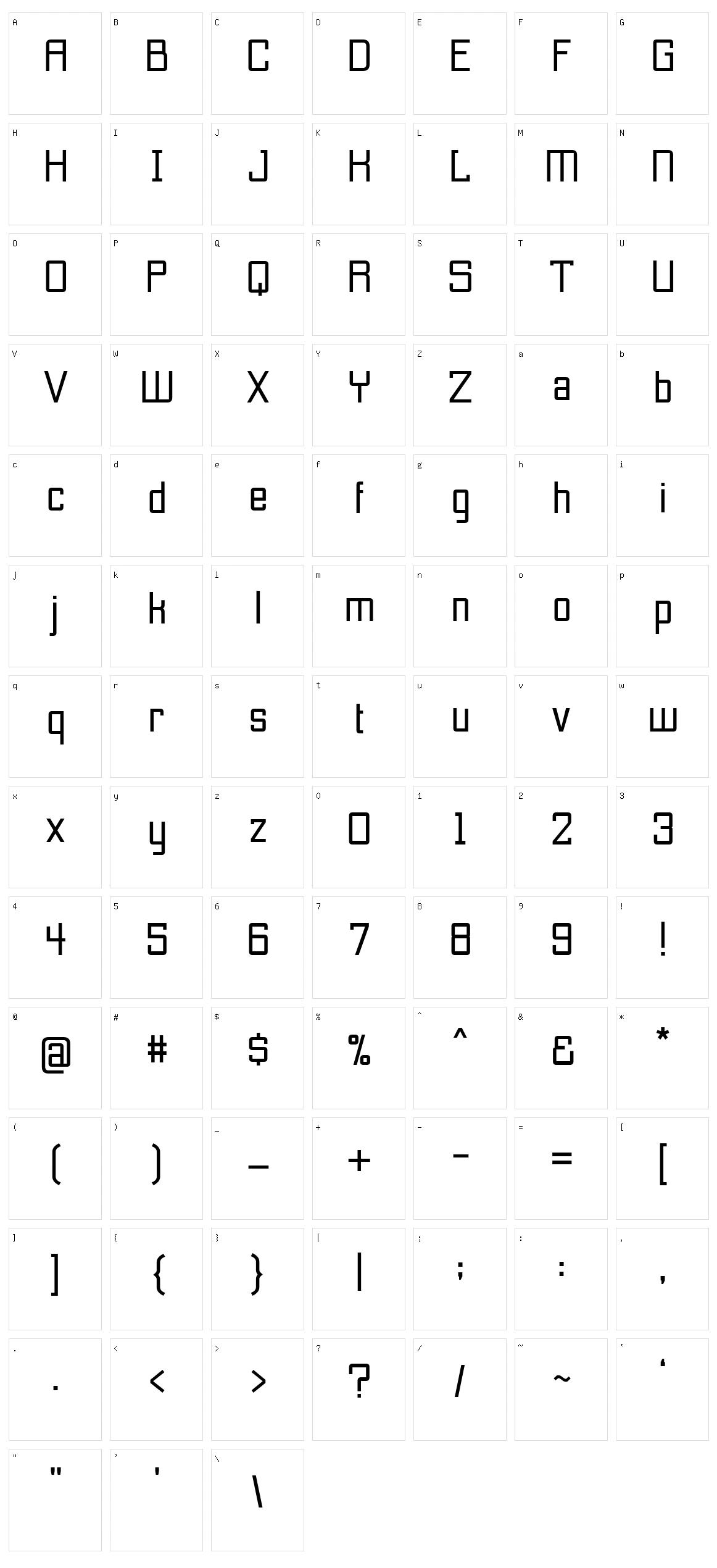
The free font Etobicoke is carefully designed by Arfurware, showcasing a thoughtful balance of creativity and usability and falls under the Sans serif font style. When you download the ZIP file, it contains only 21.85 KB of font files, making it lightweight and quick to download. Please review the license details below to understand permitted usage and distribution rights. If license information is not available, we recommend using this font for personal projects only or contacting the author directly for commercial usage permissions.